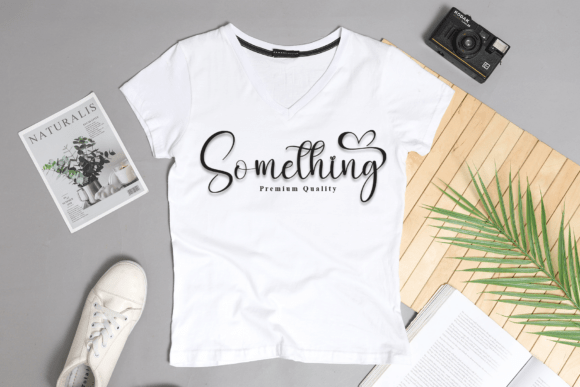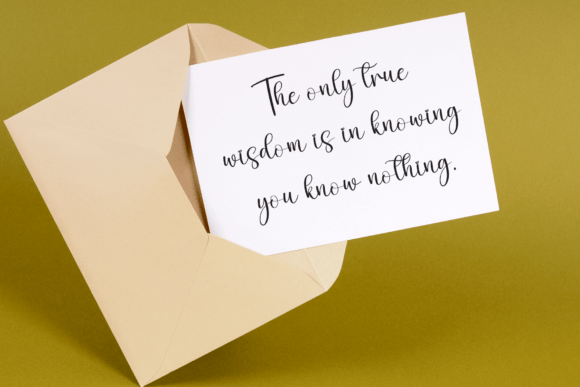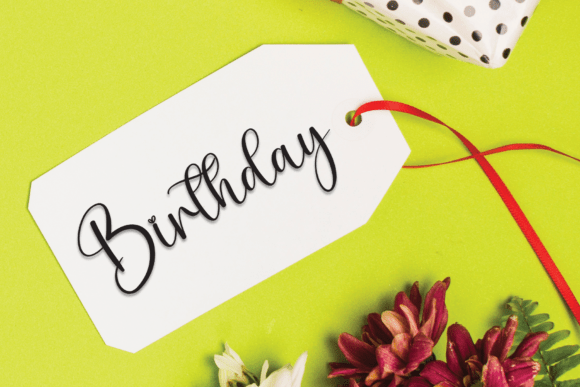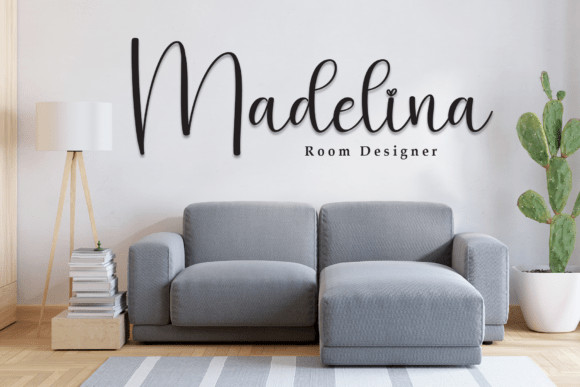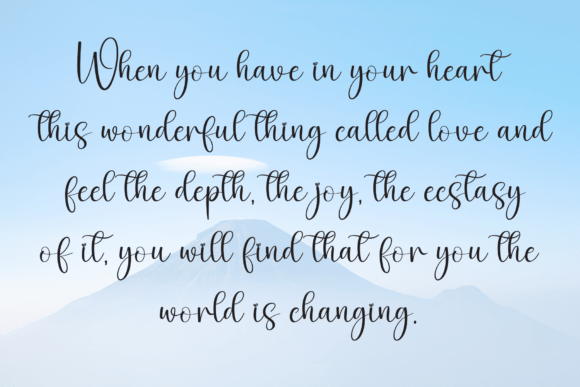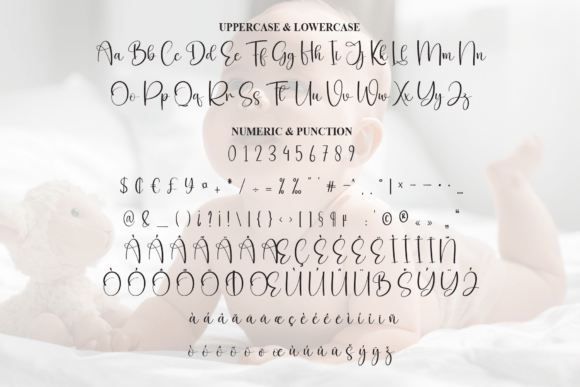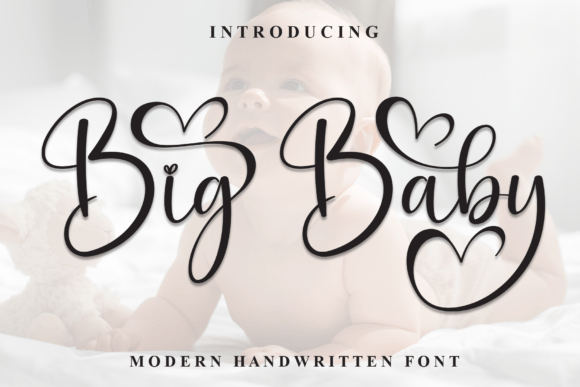
Introducing Big Baby Font: Elevate Your Designs with Elegance and Sophistication
In the world of typography, fonts play a crucial role in conveying the tone and personality of a design. For those seeking a script font that exudes elegance, sophistication, and a touch of modern calligraphy, Big Baby Font is an exceptional choice. This beautifully flowing script font is designed to add a touch of charm and refinement to any design, making it perfect for a variety of applications, from wedding invitations and branding to social media and luxury projects.
The Characteristics of Big Baby Font
Big Baby Font boasts graceful curves and stylish flourishes that set it apart from other script fonts. Its modern calligraphy touch gives it a fresh and contemporary feel, while its elegant flow makes it suitable for a wide range of design applications. The font’s sophisticated look and feel can instantly elevate the aesthetic of a design, making it a go-to choice for designers and crafters seeking to create a lasting impression.
Perfect for Wedding Invitations and Branding
Wedding invitations and branding materials require a level of sophistication and elegance that Big Baby Font effortlessly provides. The font’s beautiful flow and stylish flourishes make it perfect for creating stunning wedding invitations that set the tone for a special day. Similarly, for branding, Big Baby Font can add a touch of luxury and refinement to a company’s visual identity, helping to establish a strong and memorable brand presence.
Enhance Your Social Media and Luxury Projects
In the realm of social media, standing out from the crowd is crucial. Big Baby Font can help designers create eye-catching social media graphics, quotes, and posts that exude elegance and sophistication. For luxury projects, the font’s modern calligraphy touch and refined aesthetic make it an ideal choice for creating high-end designs that convey exclusivity and prestige.
Why Choose Big Baby Font?
There are several reasons why Big Baby Font stands out from other script fonts:
- Elegant and Sophisticated: Big Baby Font’s beautiful flow and stylish flourishes create an elegant and sophisticated look that is perfect for a variety of design applications.
- Modern Calligraphy Touch: The font’s modern calligraphy touch gives it a fresh and contemporary feel that sets it apart from other script fonts.
- Versatile: Big Baby Font is suitable for a wide range of design applications, from wedding invitations and branding to social media and luxury projects.
- Easy to Read: Despite its elegant and cursive nature, Big Baby Font remains easy to read, making it a practical choice for designs that require a level of sophistication and legibility.
Tips for Using Big Baby Font Effectively
To get the most out of Big Baby Font, consider the following tips:
- Pair with Neutral Backgrounds: Big Baby Font’s elegant flow and stylish flourishes are best showcased against neutral backgrounds that allow the font to take center stage.
- Experiment with Colors: While Big Baby Font looks stunning in black or dark colors, don’t be afraid to experiment with different colors to add a touch of personality to your designs.
- Use for Headings and Titles: Big Baby Font is perfect for headings and titles, where its elegant and sophisticated look can make a lasting impression.
Big Baby Font is a beautifully flowing script font that offers a perfect blend of elegance, sophistication, and modern calligraphy. Its versatile nature makes it suitable for a wide range of design applications, from wedding invitations and branding to social media and luxury projects. With its easy-to-read design and stylish flourishes, Big Baby Font is an excellent choice for designers and crafters seeking to add a touch of charm and refinement to their designs.
Whether you’re creating wedding invitations, branding materials, social media graphics, or luxury projects, Big Baby Font is sure to elevate your designs to the next level. So why wait? Discover the beauty and elegance of Big Baby Font and take your designs to new heights!